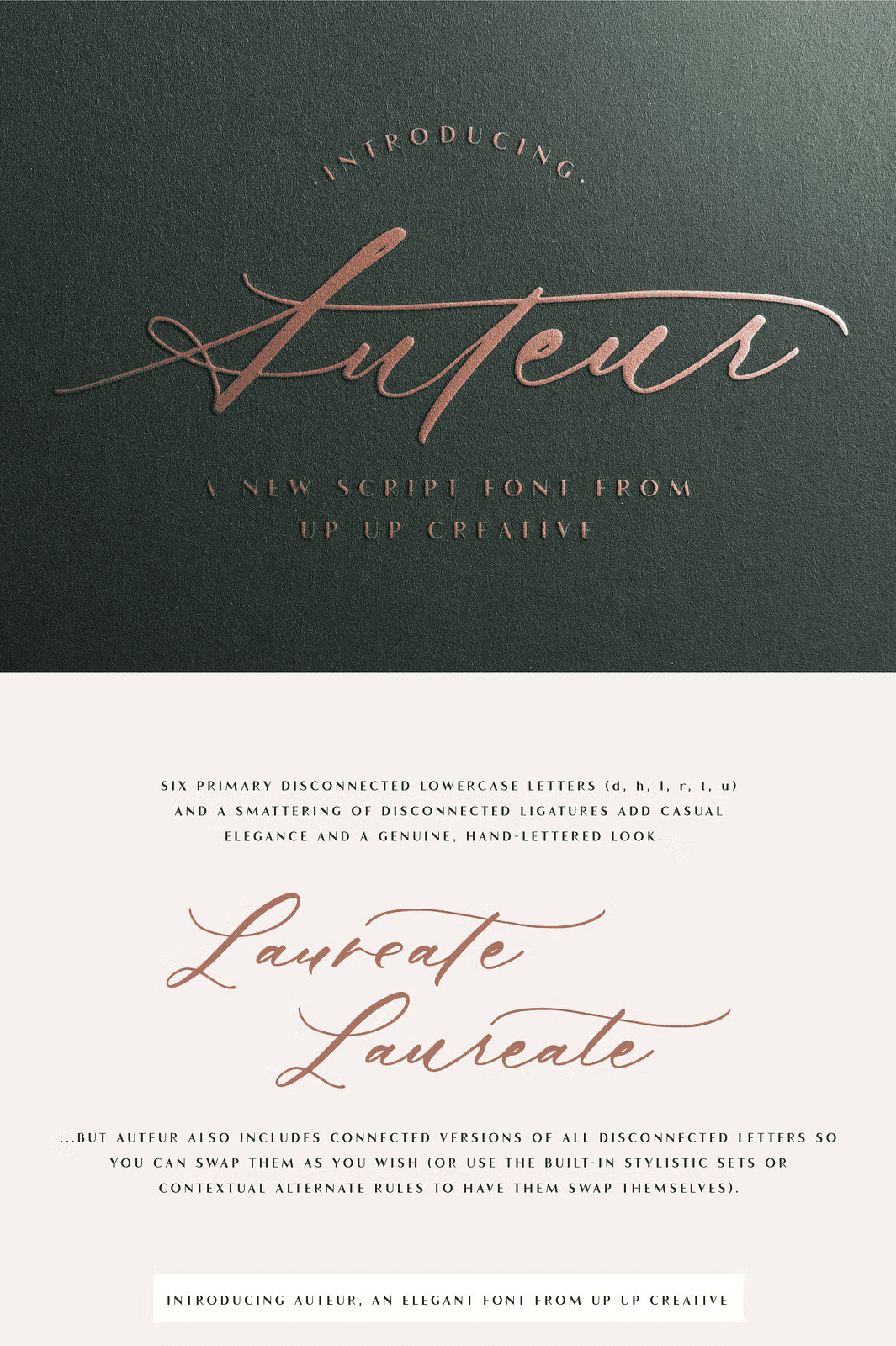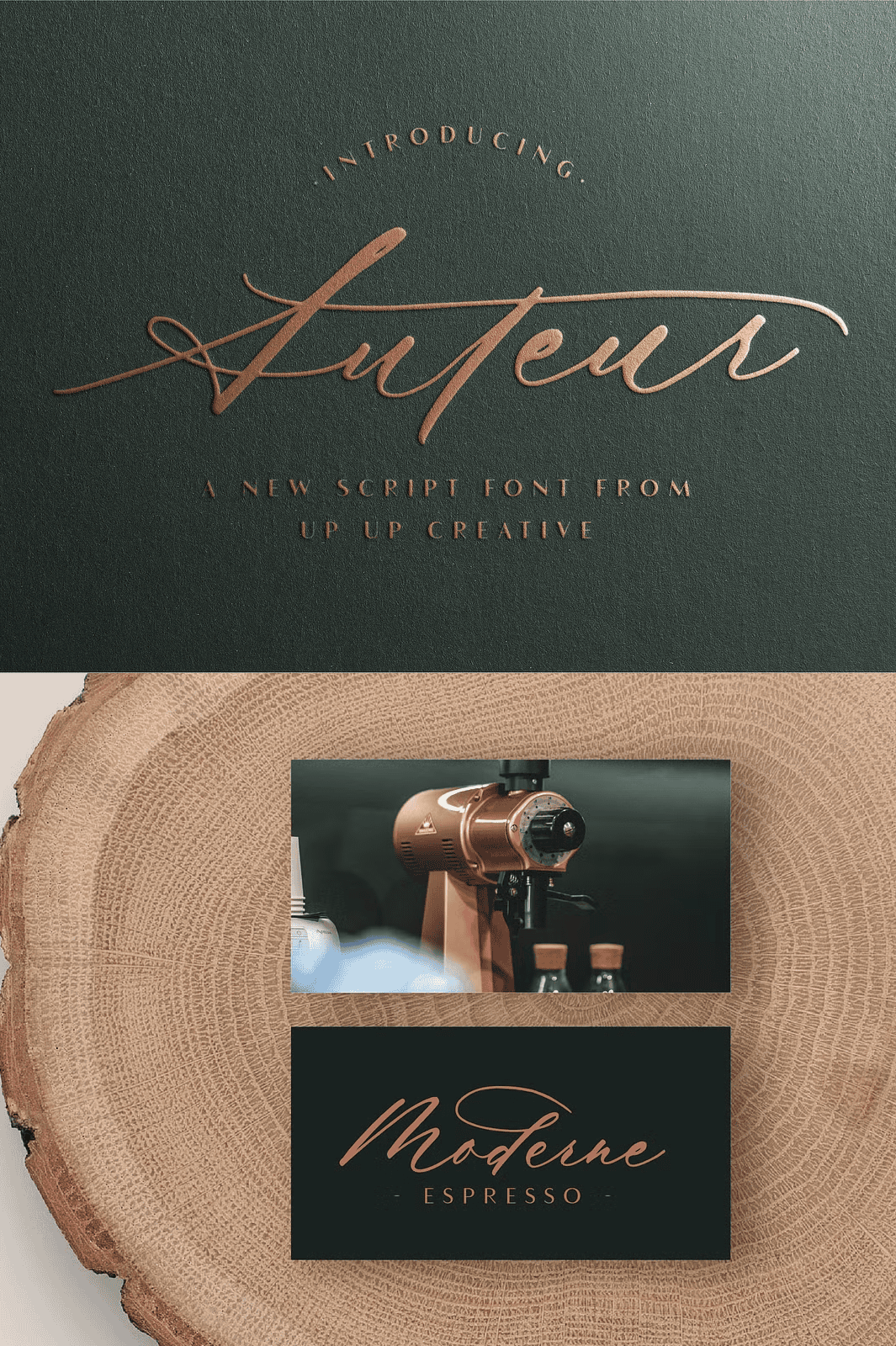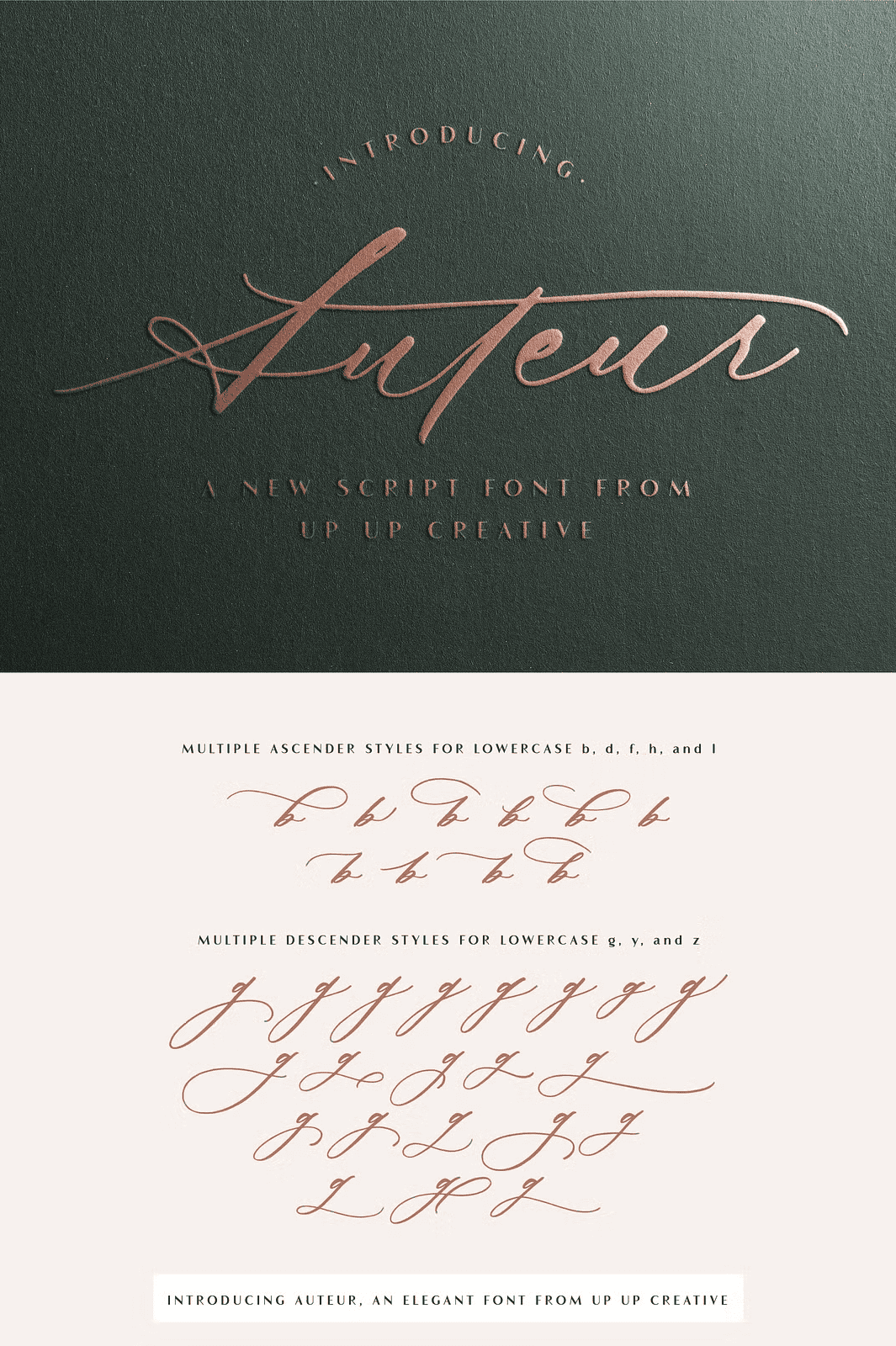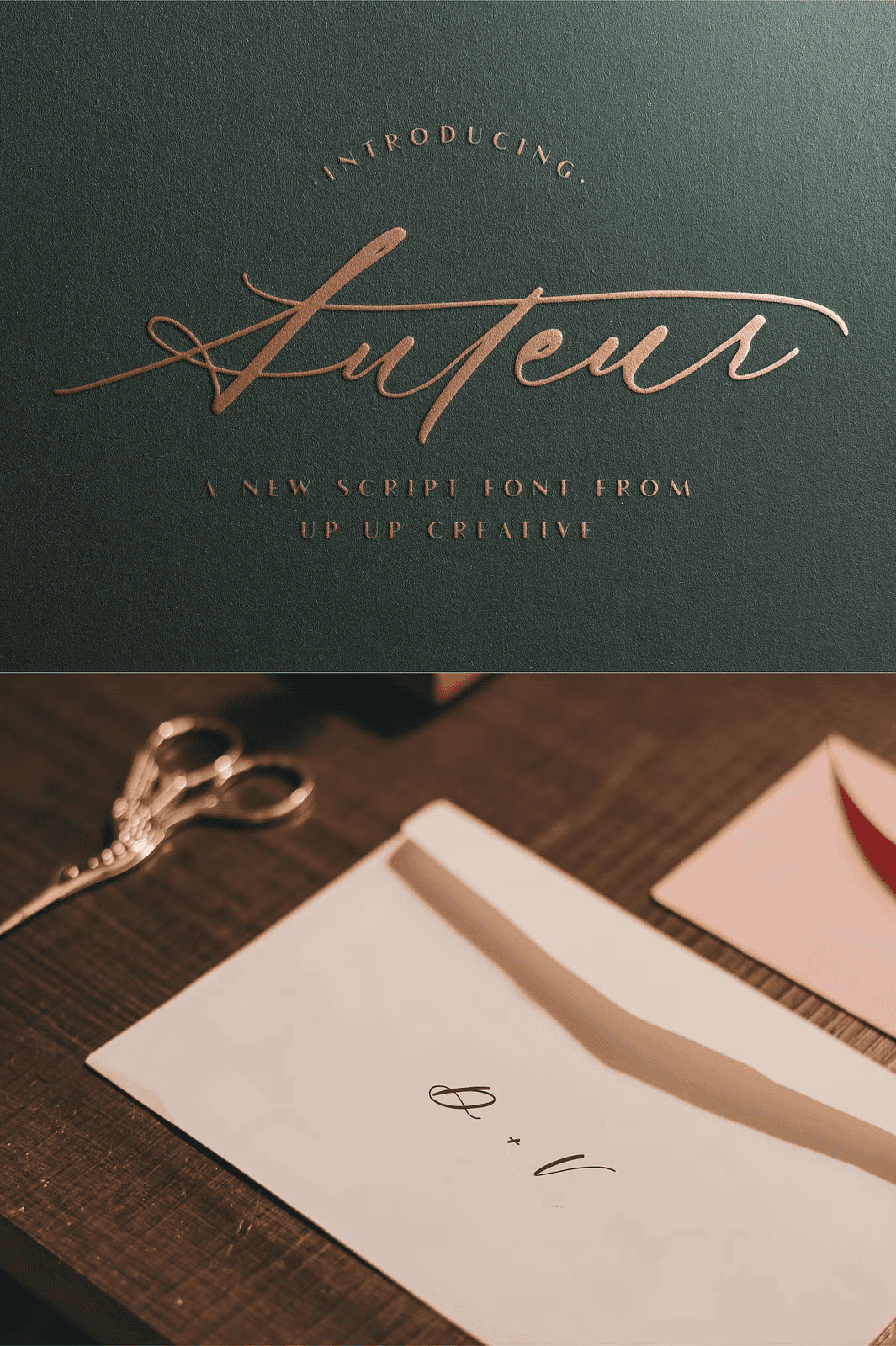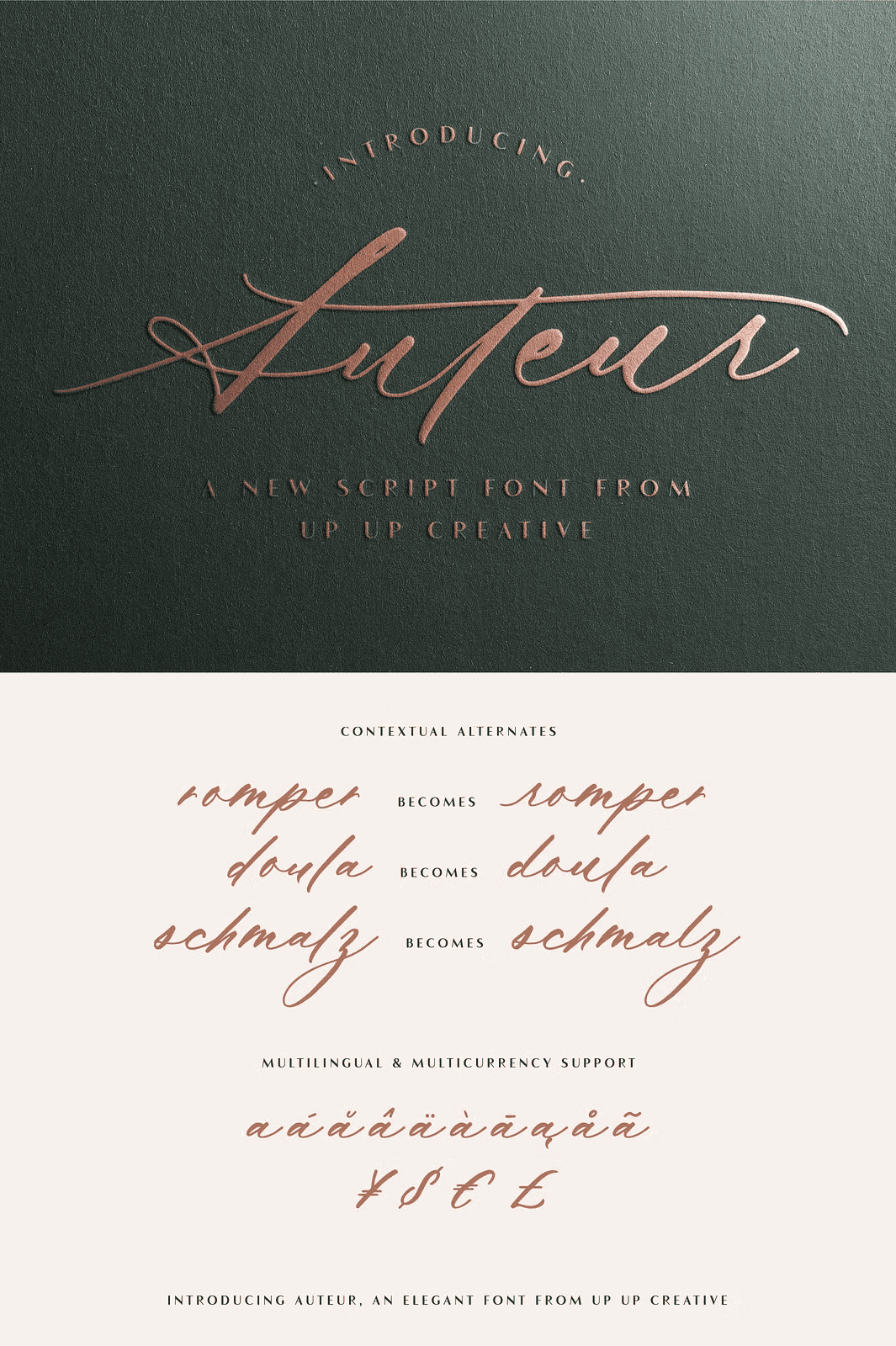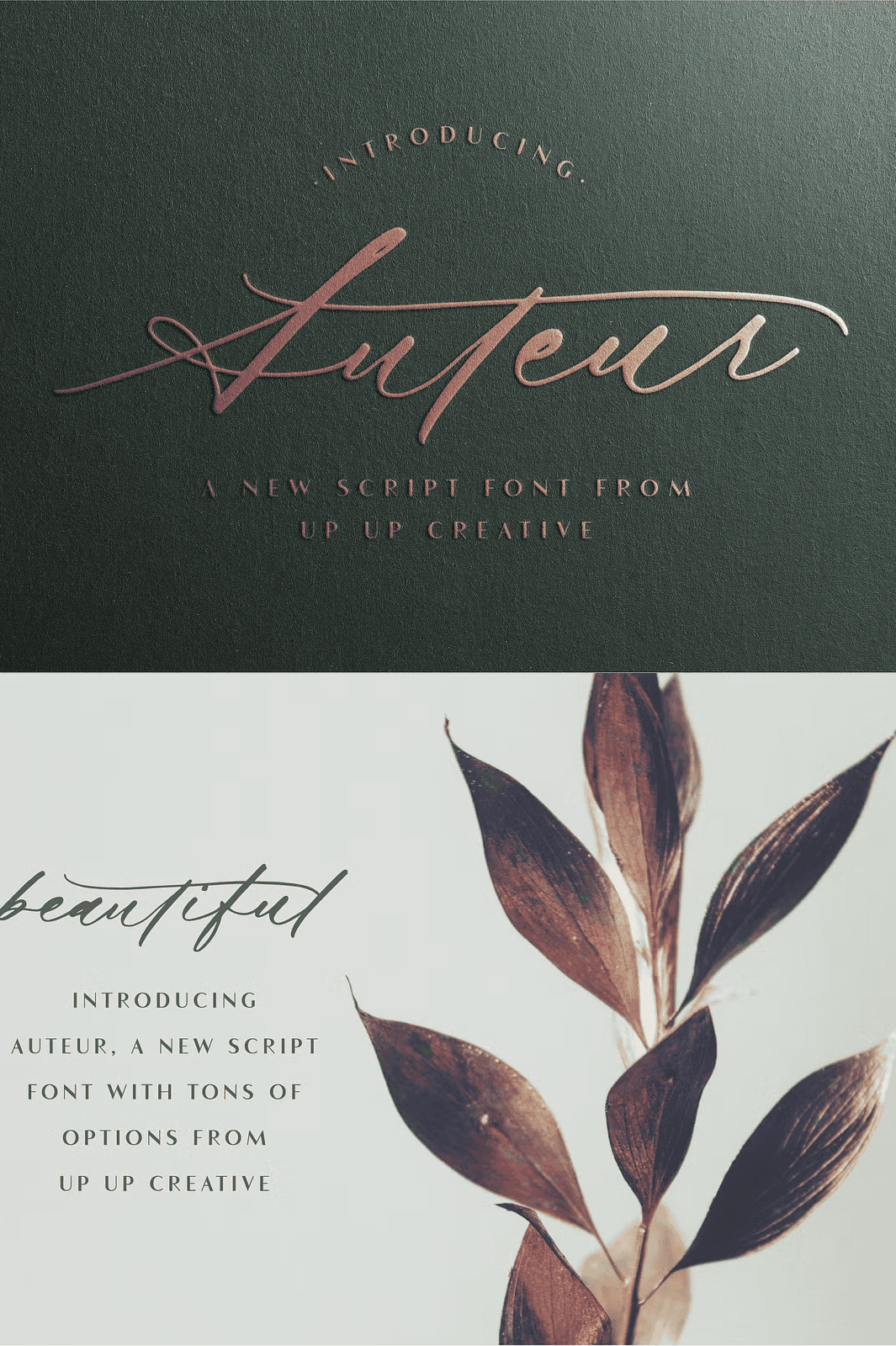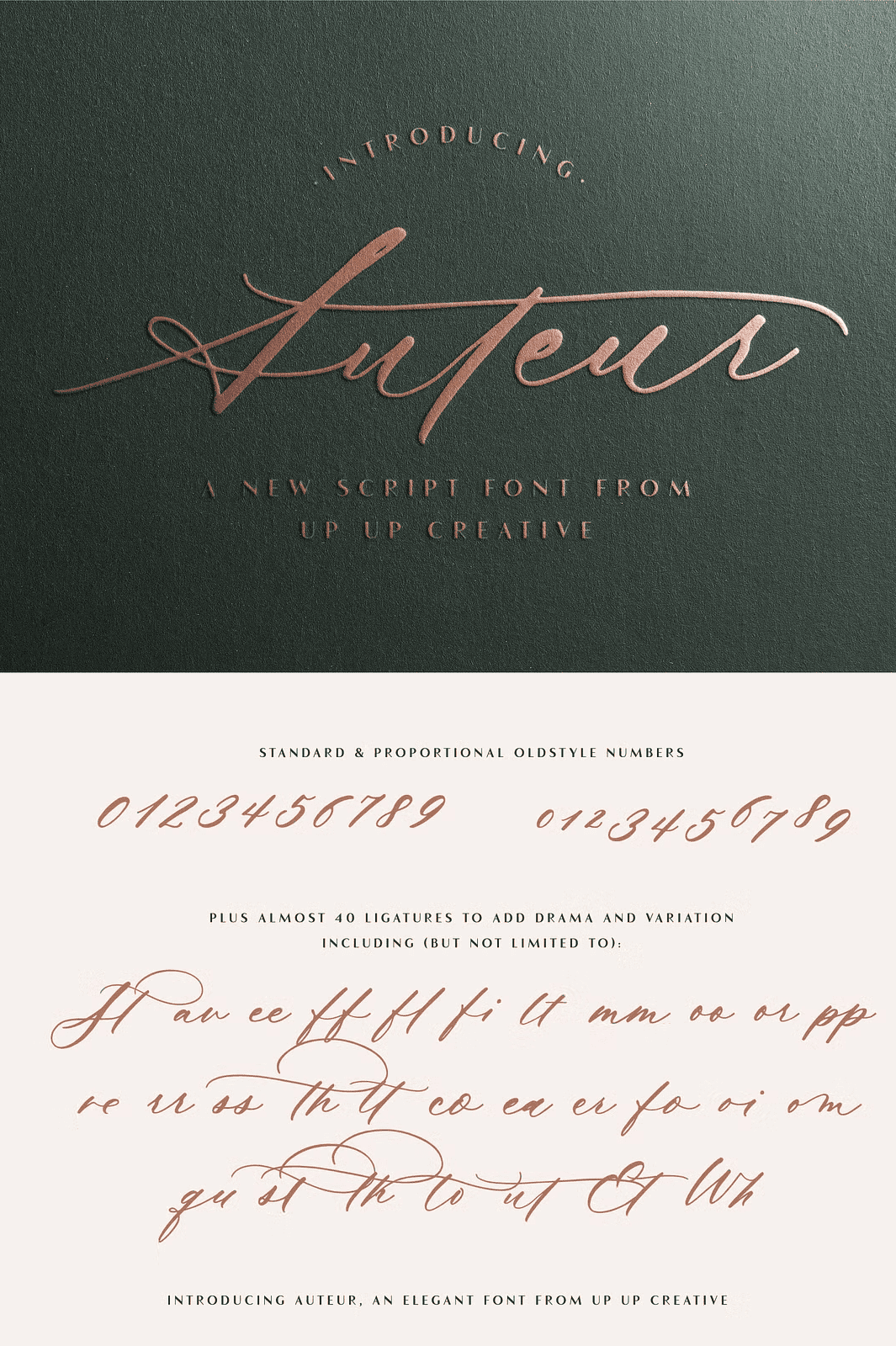
Auteur Calligraphy Script Font
Unleash Elegant Complexity with 1200+ Advanced Glyphs
Step into the world of refined typography with **Auteur**, a bold, gracefully flowing script font crafted for designers who demand creative freedom and visual sophistication. Featuring a heavy right slant and naturally disconnected letterforms (with connected variants included), Auteur captures the tactile charm of hand-lettered artistry while delivering professional-grade precision. Each character is meticulously designed to bring depth, rhythm, and movement to your layouts—making it ideal for wedding invitations, luxury brand identities, editorial spreads, and premium packaging.
With **over 1200 glyphs**, Auteur goes far beyond basic typography. It delivers a full typographic ecosystem optimized for both beauty and functionality, empowering you to craft unique, expressive compositions without compromise.
Unlock Dynamic Expressive Power with Comprehensive OpenType Features
– **Contextual Alternates**: Automatically apply stylistic variations based on surrounding characters for smooth, natural flow—perfect for flowing script text.
– **Stylistic Alternates**: Choose from multiple versions of key letters (A, E, G, P, R, S, etc.) to eliminate repetition and enhance visual interest.
– **Initial & Final Forms**: Access exclusive opening and closing forms for letters like *t*, *n*, *m*, and *l*—ideal for elegant headlines and flowing signatures.
– **Multiple Ascending & Descending Variants**: Experiment freely with unique upstrokes and downstrokes for each letter, enabling rich visual composition and rhythm.
– **Ten Distinct Ampersand Styles**: Select from ornate, delicate, or bold ampersands to match your design’s mood and tone.
– **Ligatures & Connected Forms**: Add handcrafted authenticity to your text with optional ligature combinations and seamless connections.
– **Multilingual Support**: Includes Latin, Cyrillic, Greek, and extended character sets—perfect for global branding and multilingual content.
– **Multiple Numerical Forms**: Choose from standard, tabular, proportional, and oldstyle figures to fit any layout.
– **Currency Symbols**: Full support for over 150+ currency signs, including €, £, ¥, $, and many regional variants.
These capabilities transform a simple typeface into a versatile design engine, letting you craft distinctive, publication-ready visuals with ease.
Create Bold, Unique Visual Narratives with Unmatched Flexibility
Let Auteur become your creative partner across every project. Use it to:
– Design high-end wedding invitations with elegant, personalized signatures
– Build compelling brand identities for fashion, lifestyle, or artisanal businesses
– Illustrate editorial layouts with dynamic, expressive headlines
– Craft social media banners, Instagram posts, and promotional materials
– Develop packaging and product labels with a handcrafted aesthetic
– Enhance web headers and blog titles with refined visual impact